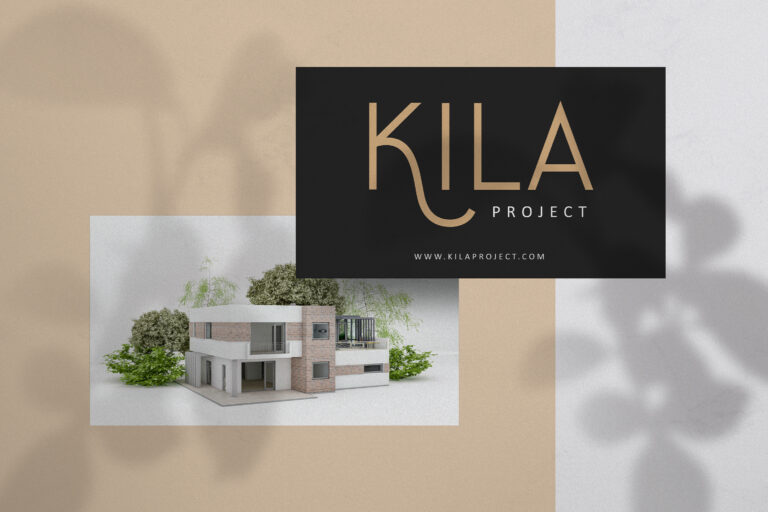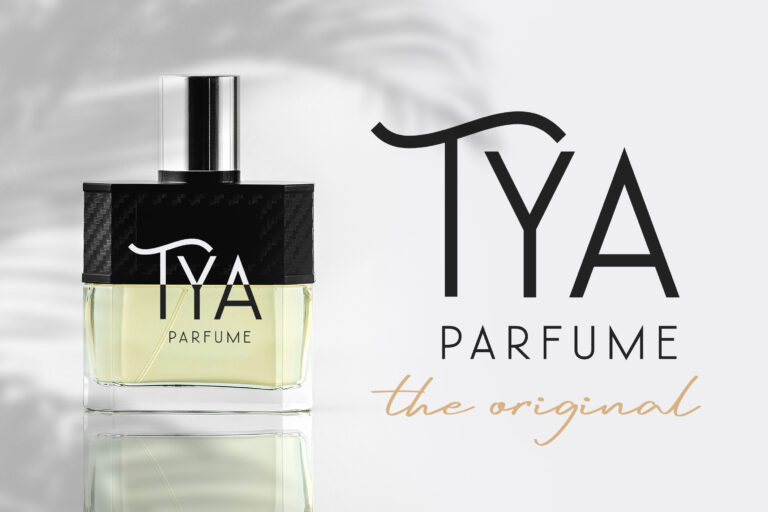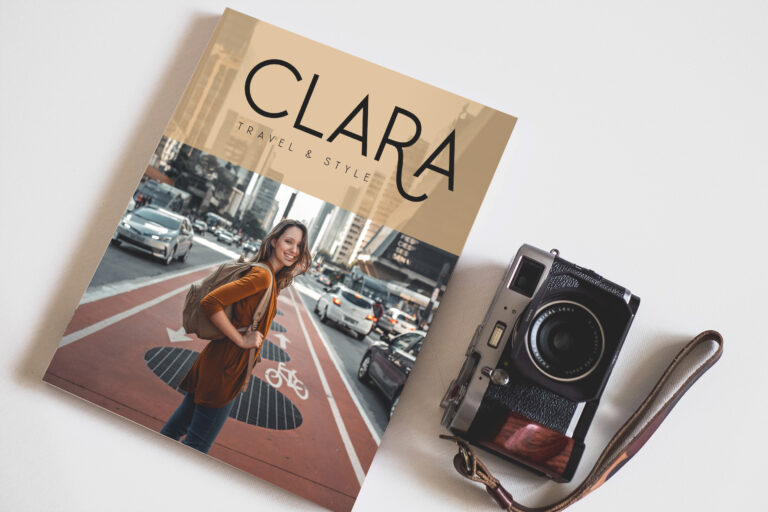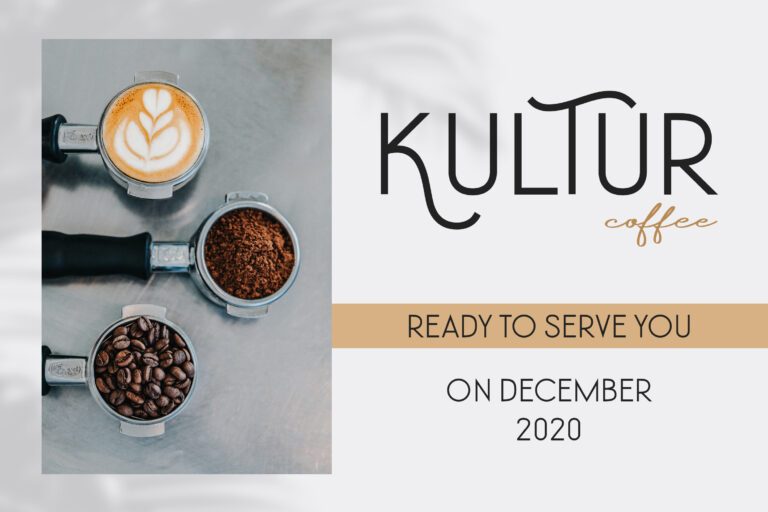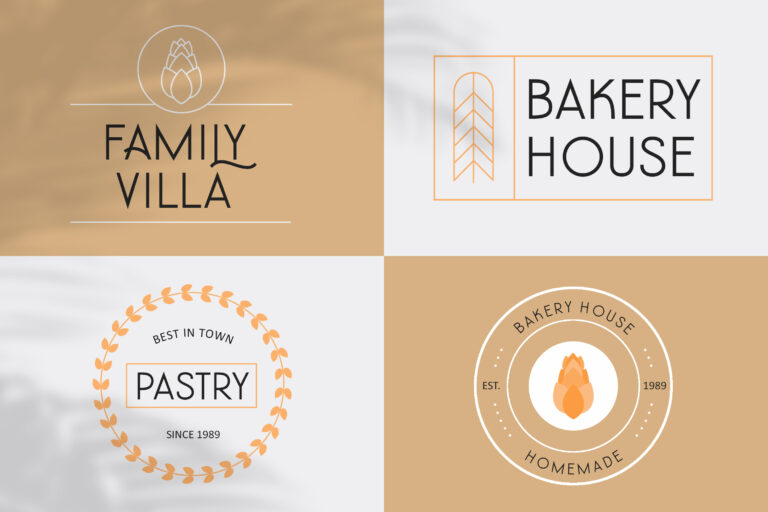
Funwork
This is elegant sans serif font.
The font is all caps with stylistic alternate, will satisfy the most projects like banner, advertisement, logo, magazine, fashion, and other.